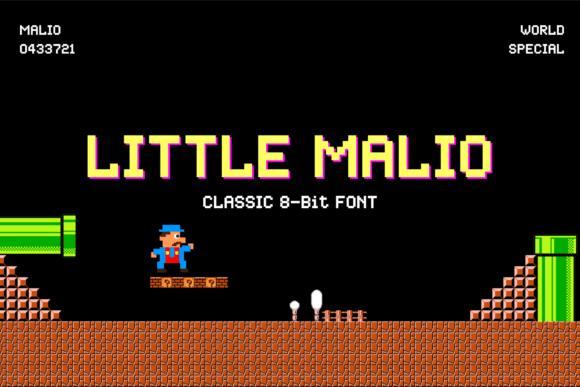
Journey through the realm of nostalgia and infuse your designs with an electrifying aura of the past with Little Malio Font, the epitome of vintage artistry. This display font, meticulously designed by Fanddy Babur, draws inspiration from the golden era of pixelated video games, capturing the essence of those treasured memories.
With Little Malio Font, prepare to embark on a creative expedition, returning to simpler times where block letters and vibrant graphics adorned the screens of our youth. Let this font ignite your imagination and transport you to a world of whimsy and retro charm.
Picture this: your designs radiate with the captivating presence of Little Malio Font. Envision T-shirts emblazoned with pixelated wonders, transforming them into wearable relics of the past. Unleash your creativity and craft posters that evoke a sense of adventure, reminiscing over the iconic games that shaped our childhood.
Little Malio Font possesses an innate ability to evoke emotions, effortlessly captivating the hearts of your audience. Its nostalgic appeal bridges the gap between generations, allowing you to connect with individuals who share a fondness for the pixelated era. Watch as your designs resonate with those who appreciate the beauty of simplicity and the allure of vintage aesthetics.
Moreover, Little Malio Font is an incredibly versatile font, effortlessly adapting to a wide range of design projects. Whether you're crafting eye-catching logos, creating mesmerizing social media posts, or designing captivating posters, this font will elevate your creations to new heights. Its distinct character shines through, transforming ordinary text into captivating statements that demand attention.
Embark on a journey of creative exploration with Little Malio Font, where the past and present harmoniously intertwine. Embrace the allure of the bygone era while captivating the hearts of your audience with designs that radiate a sense of familiarity and nostalgia.